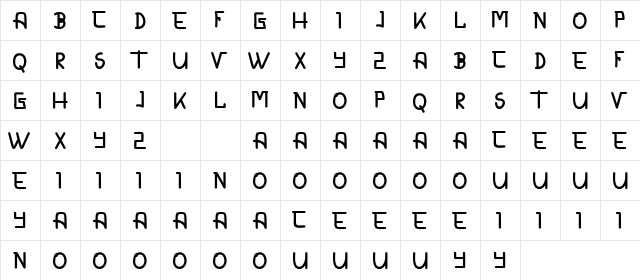
CALDERDALE DEMO Regular Font Preview
CALDERDALE DEMO Regular
CALDERDALE DEMO Regular Font Details
| Foundry | edric studio |
| Designer | Yasri |
Design Context for CALDERDALE DEMO Typeface
CALDERDALE DEMO takes a measured approach to typography — its balanced proportions and neutral character make it a reliable workhorse for both digital and print work.